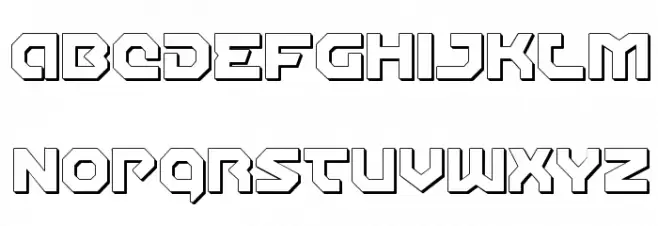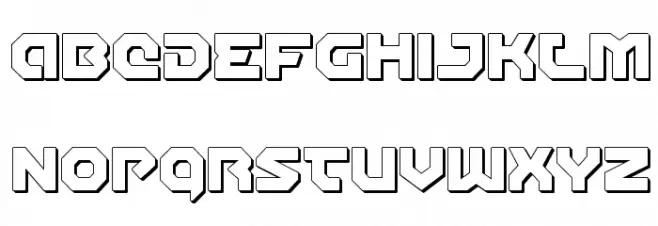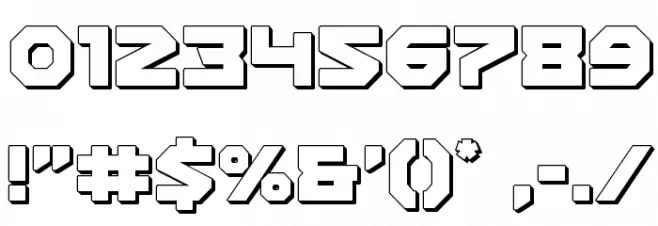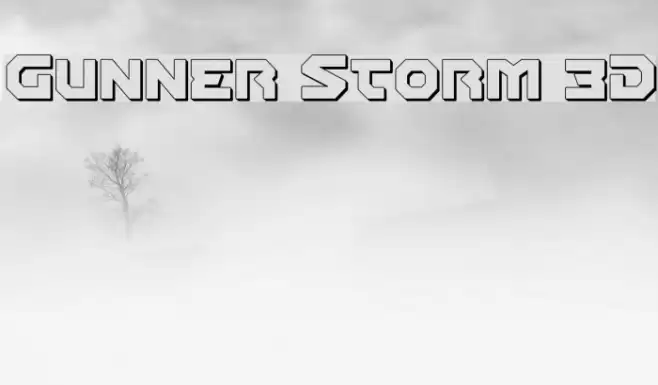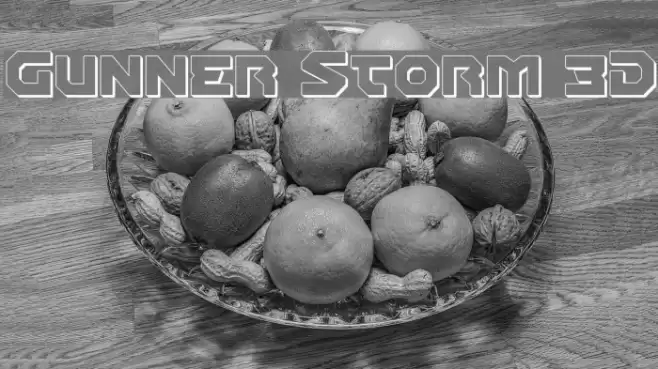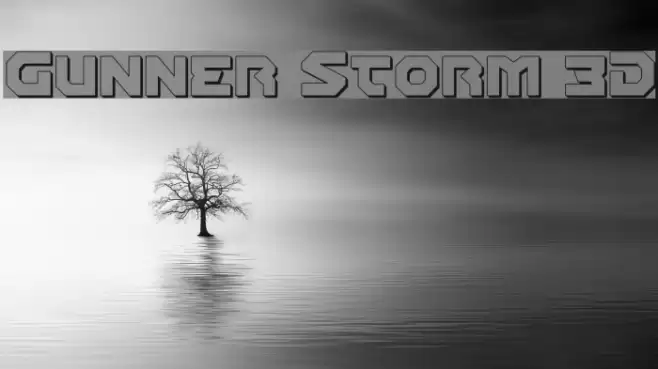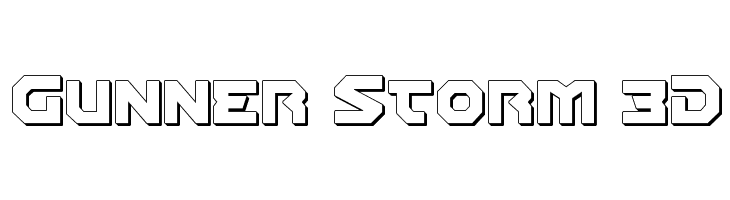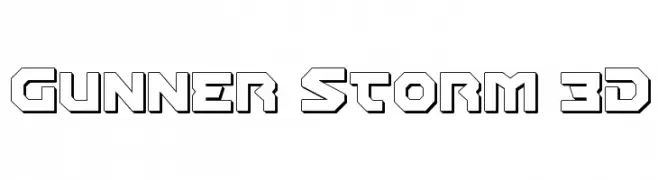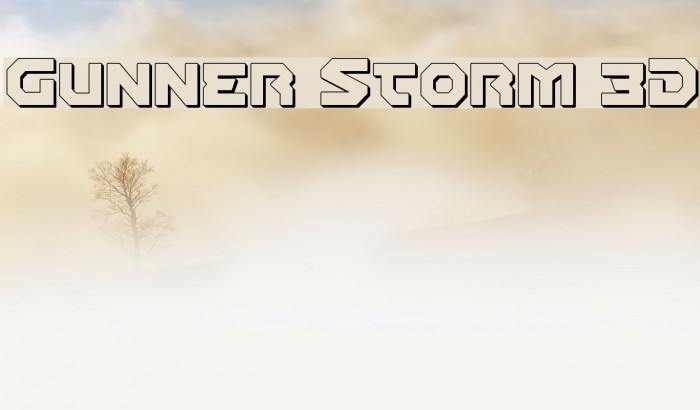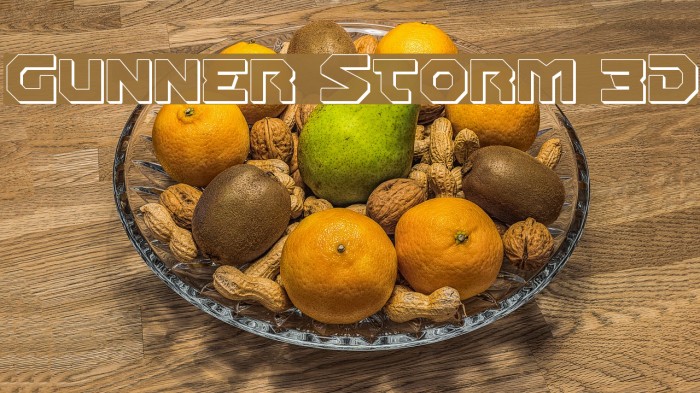
Gunner Storm 3D
This font features a bold, three-dimensional design with a futuristic and geometric aesthetic. Each character is outlined with a thick border, giving it a strong and impactful presence. The angular shapes and sharp edges contribute to its modern and dynamic look, making it stand out in any design. The uppercase and lowercase letters maintain a consistent style, while the numbers and special characters complement the overall theme. Its unique structure makes it ideal for attention-grabbing headlines and creative projects.
A bold, 3D geometric font with a futuristic and dynamic style.
- Proposed Projects: Ideal for video game titles, sci-fi movie posters, tech branding, and futuristic event flyers.
- Contrast: High
- Overall Style: Futuristic